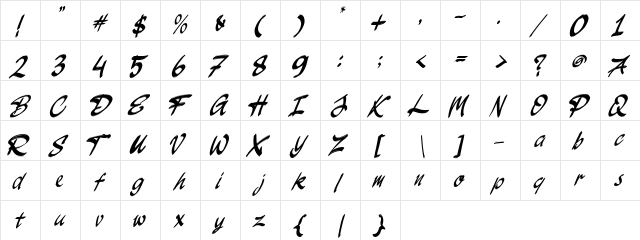
JakAs Italic
| Foundry | Degi Kurniawan |
| Designer | Degi Kurniawan |
Design Context for JakAs Typeface
JakAs is a composed and adaptable typeface that performs quietly and consistently across a wide range of design contexts. The dynamic lean of this cut emphasises speed and emphasis in any layout.
Pro Tip: Try JakAs for annotation and caption copy alongside an upright companion — the contrast in angle creates a dynamic but ordered typographic system.